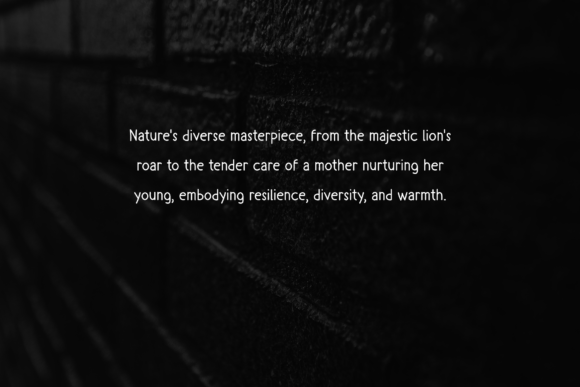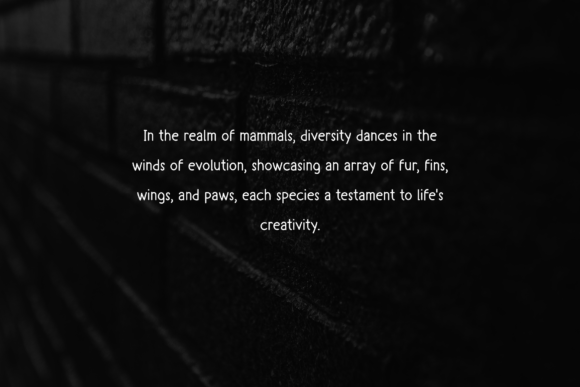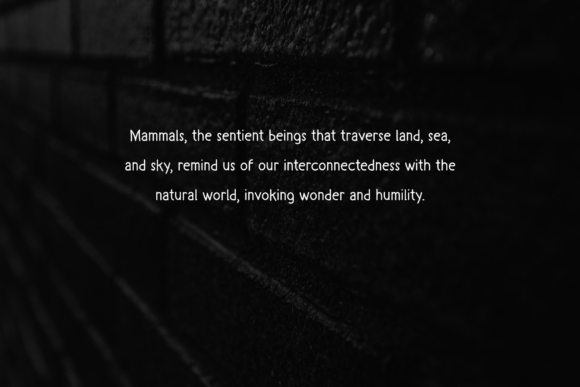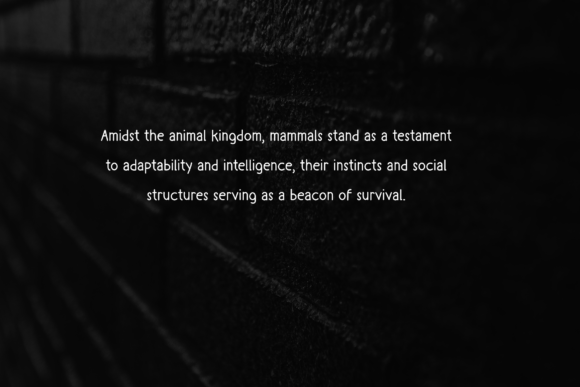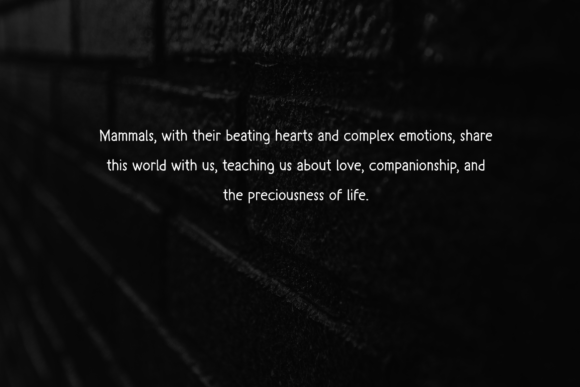
Introduction to Mamallia Font
Imagine yourself scribbling down a heartfelt thank-you note to a loved one, the pen gliding effortlessly across the paper as the words flow from your heart to the page. It’s a moment of pure creativity, where the strokes of your pen come together to convey a sense of warmth and authenticity. That’s exactly what the Mamallia Font embodies – the essence of organic, flowing strokes that evoke the elegance of mammalian movement.
As designers, we’re always on the lookout for unique design resources that can elevate our creative projects. The Mamallia Font is a high-quality addition to any design toolkit, offering a range of styles and nuances that can be used to convey a sense of human connection in our designs. Whether you’re working on a personal project or a commercial one, this font is sure to bring a touch of organic authenticity to your work.
Key Features of Mamallia Font
- High-quality design for creative projects: Mamallia Font is designed to provide a unique and elegant touch to your designs, making it perfect for various creative projects.
- Unique characteristics: Mamallia Font features a unique blend of modern and elegant design elements, making it perfect for designers who want to add a touch of sophistication to their projects.
Honest Review: Mamallia Font
One of the standout features of the Mamallia Font is its wide range of styles and weights, making it perfect for any design project. I was able to use it for a logo design and it looked great on both digital and print materials. The font also comes with a transparent background, which is super convenient for designers who like to have control over the background.
- High quality and wide range of styles and weights
- Perfect for digital and print materials
- Not as many characters as some other fonts (⚠️)
- Some of the styles can be a bit too playful for more formal designs (⚠️)
Overall, I was impressed with the Mamallia Font and would definitely recommend it as a design resource for creative projects. It’s a great option for designers who want a high-quality font without breaking the bank.
Mamallia Font
The Mamallia Font is a high-quality design resource suitable for various creative projects. It features a transparent background, making it versatile for different applications.
Tips for Getting the Most Out of Mamallia Font
To get the most out of the Mamallia Font, experiment with different font sizes, colors, and styles. You can also combine it with other design elements to create a unique look.
The Mamallia Font is suitable for various creative projects, including branding, marketing materials, and digital designs. Its transparent background makes it easy to use in different applications.